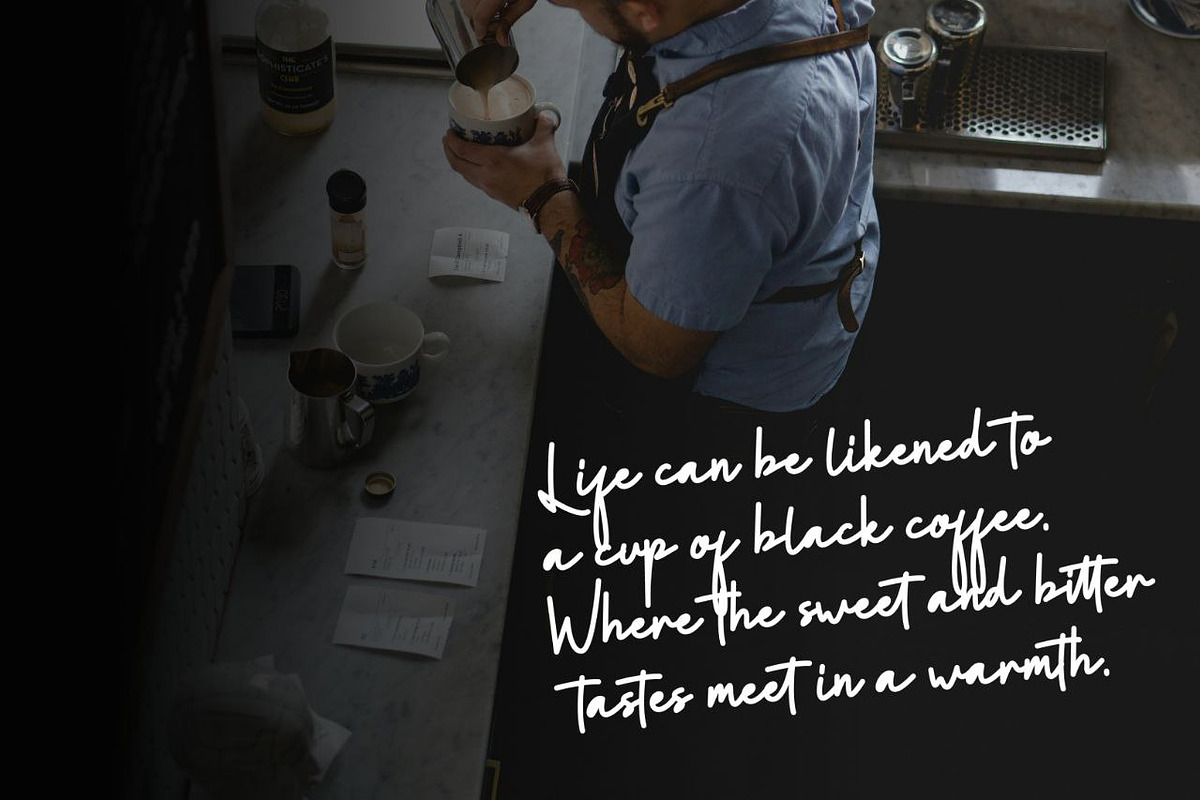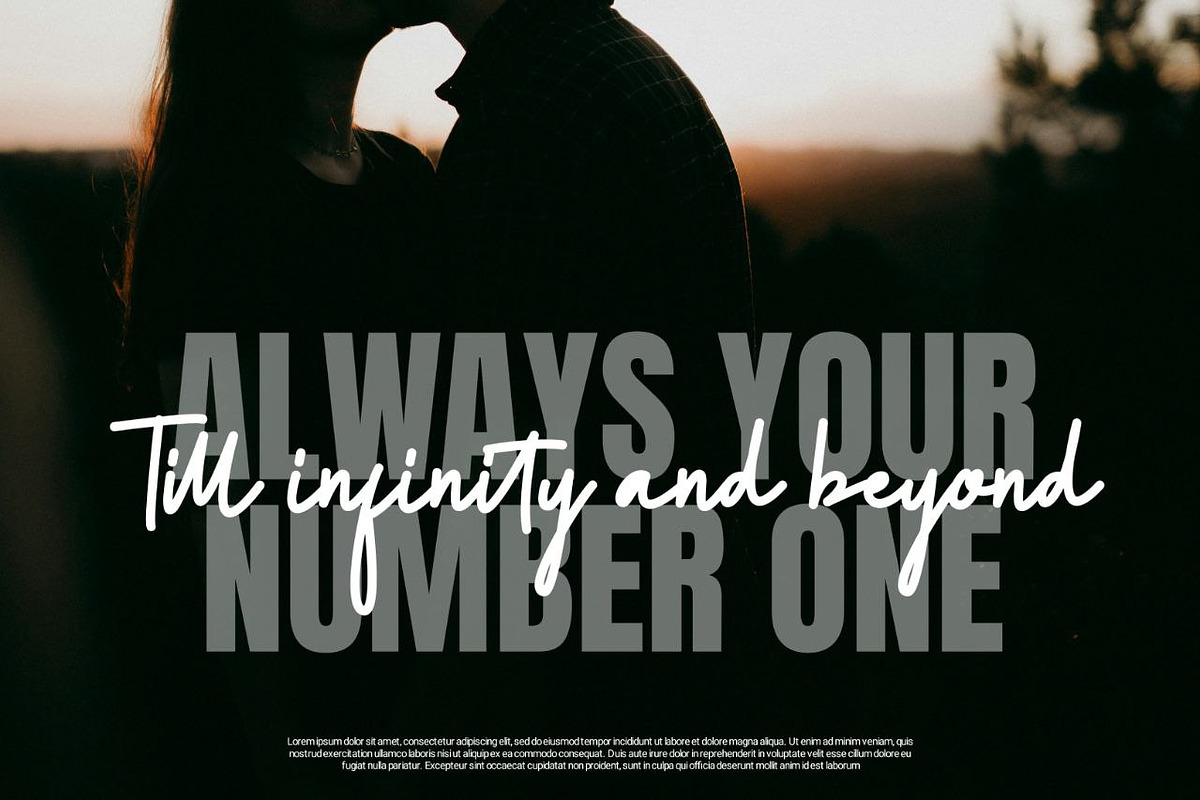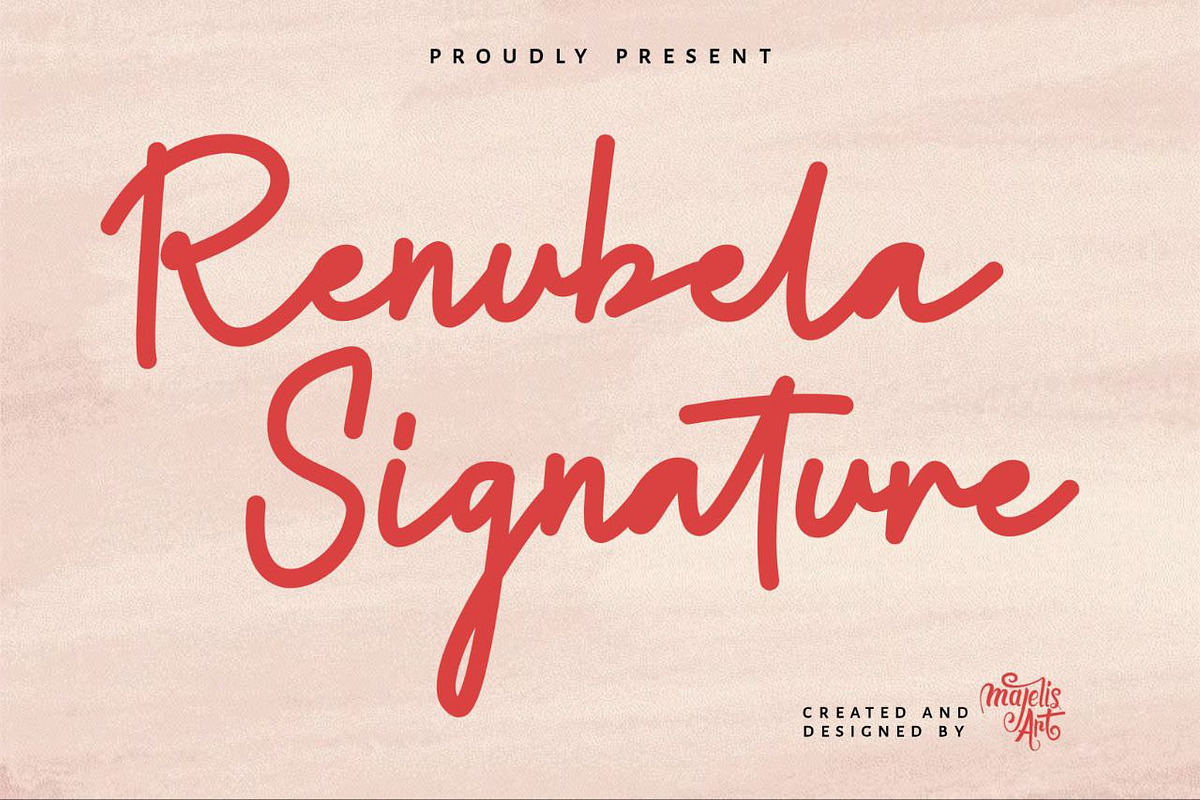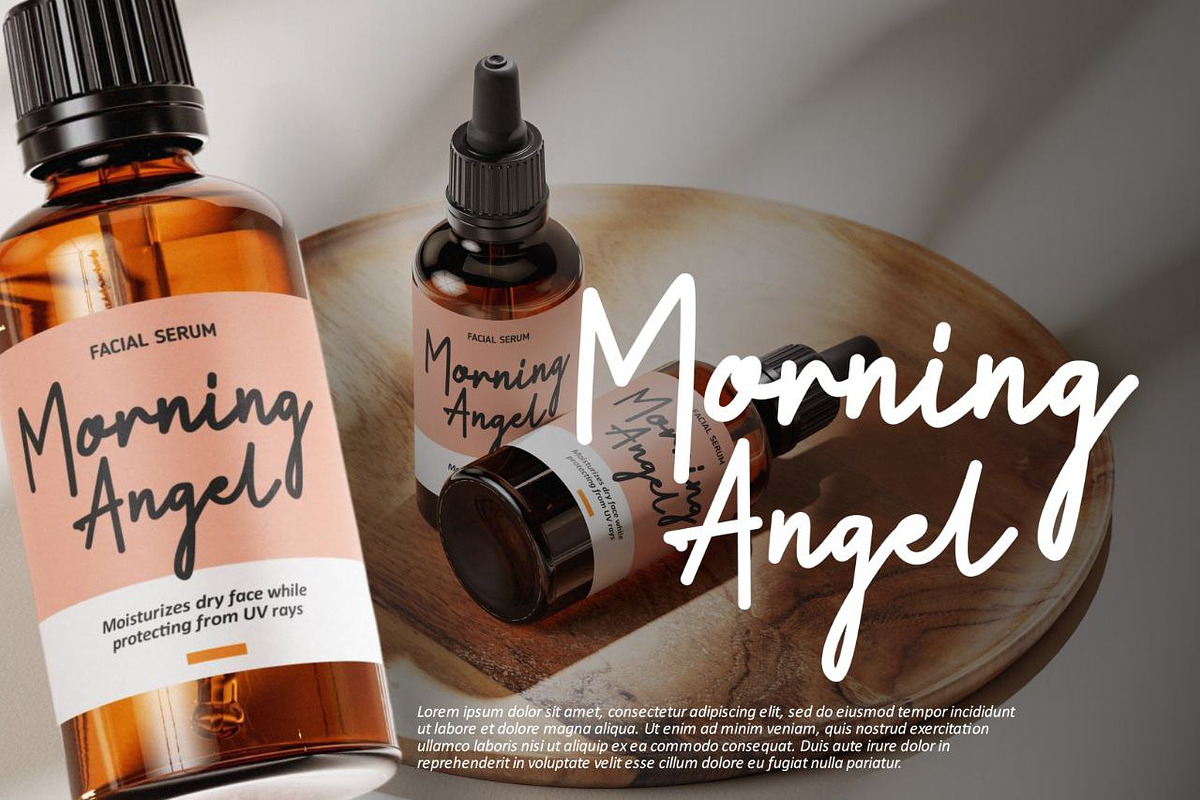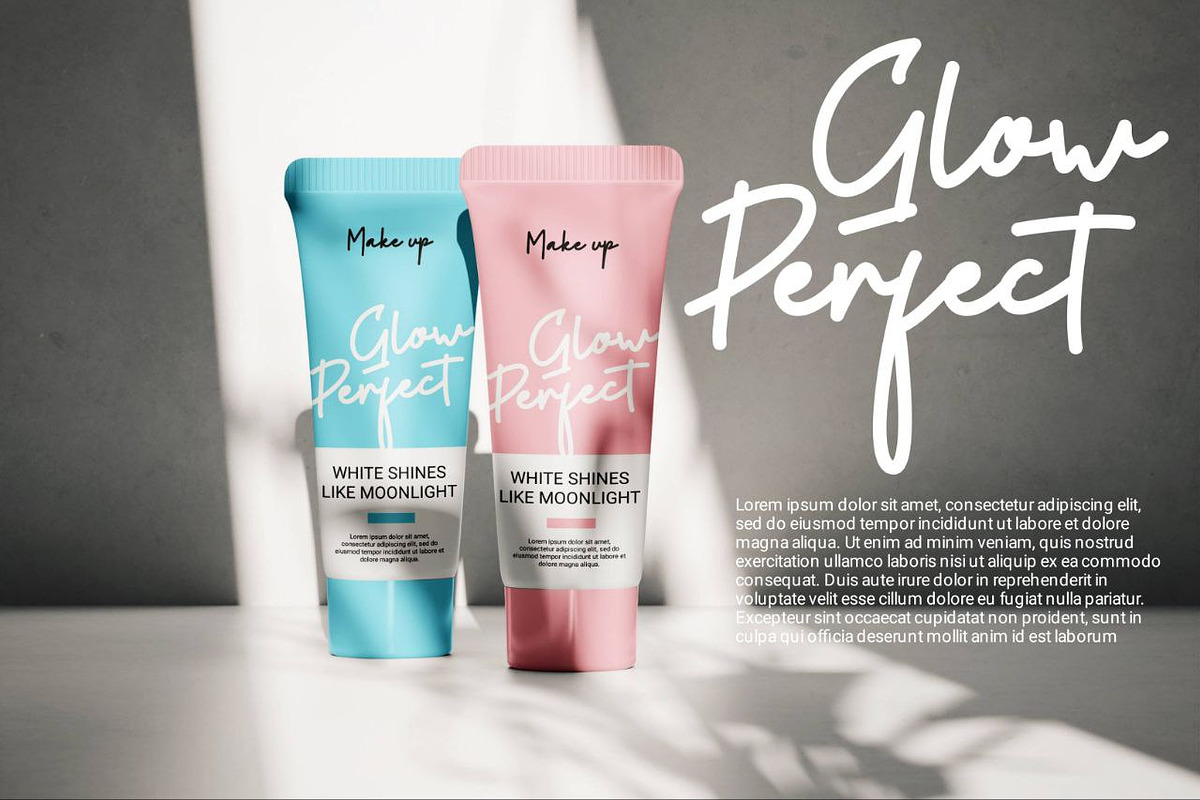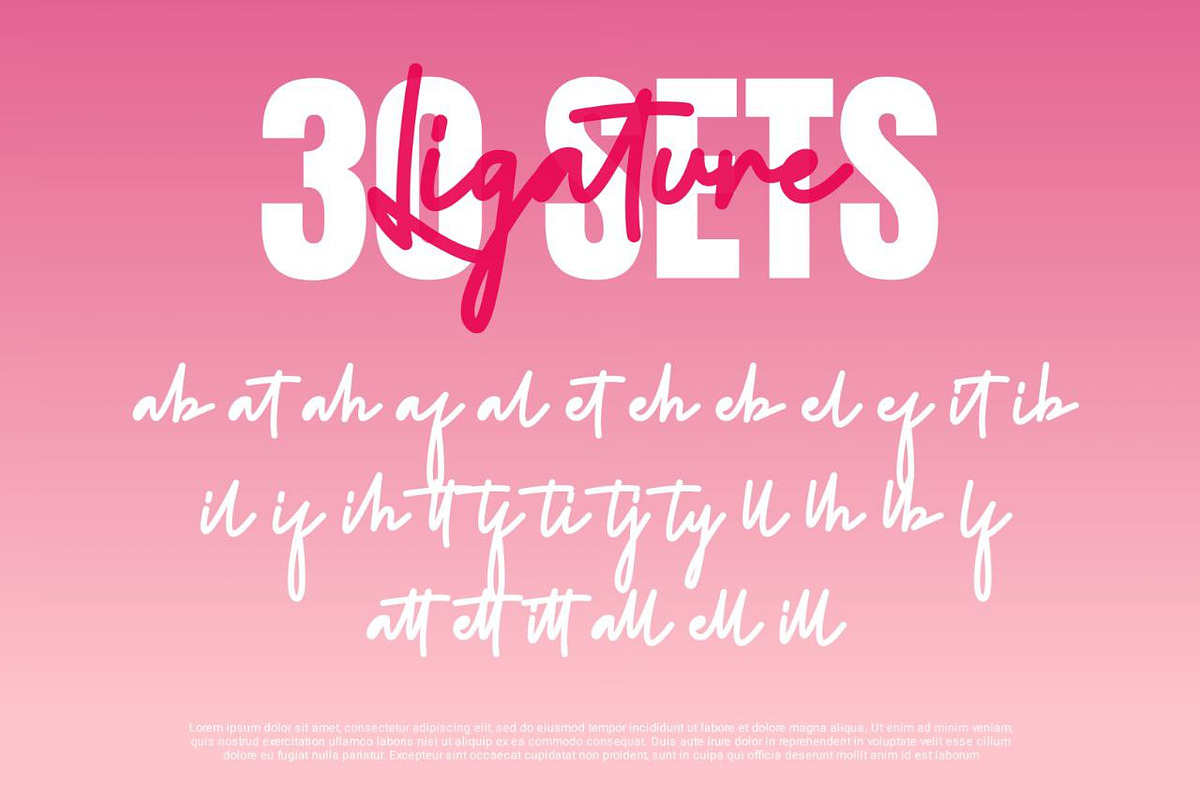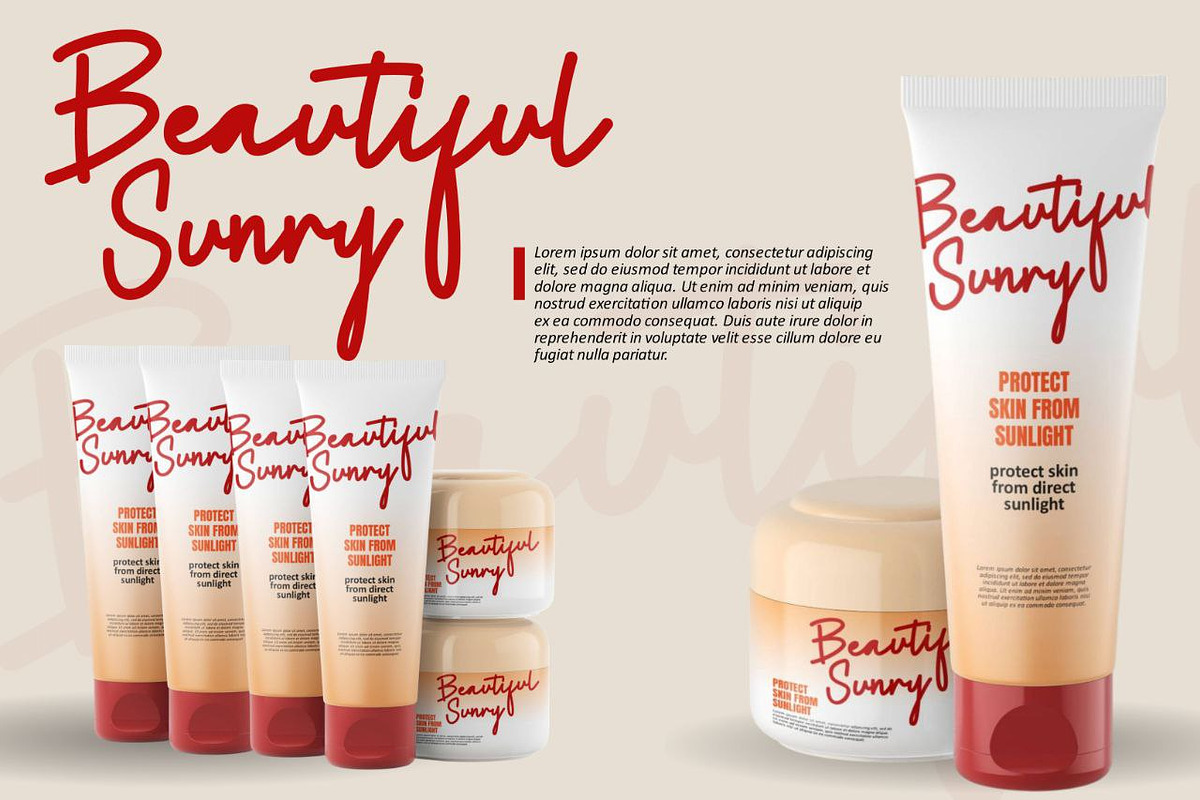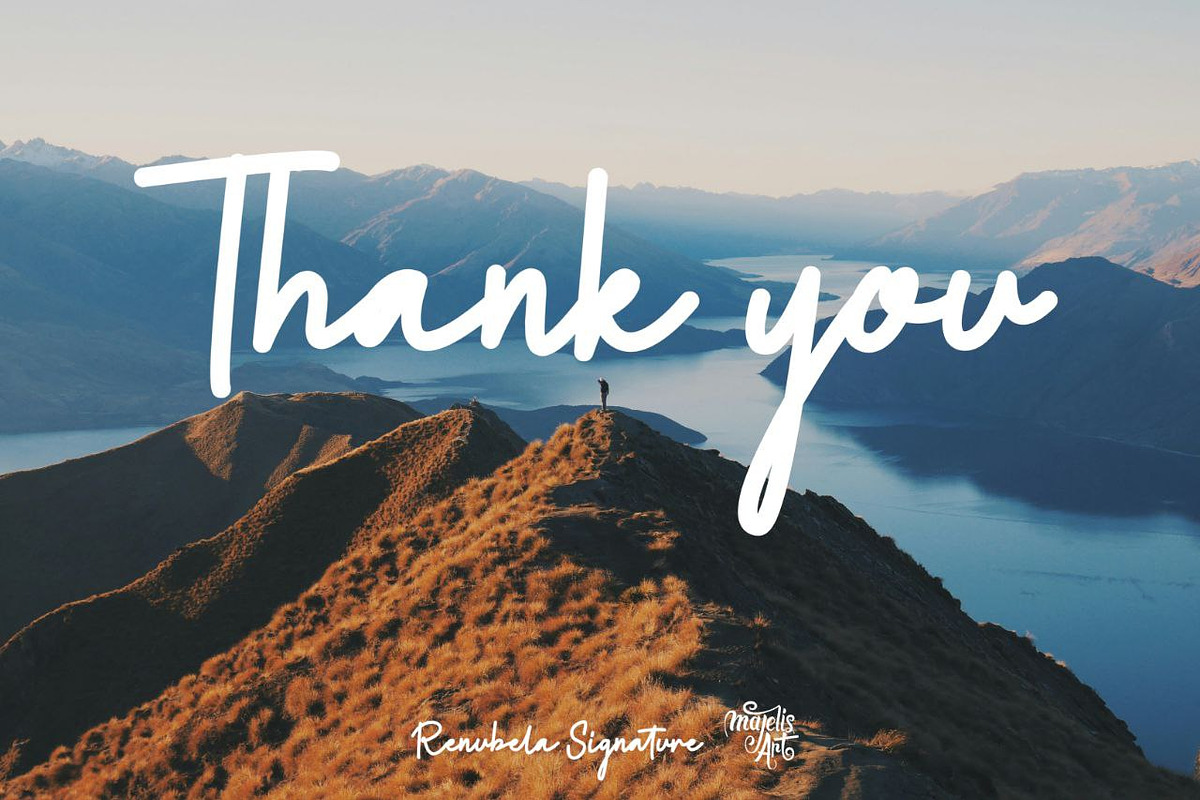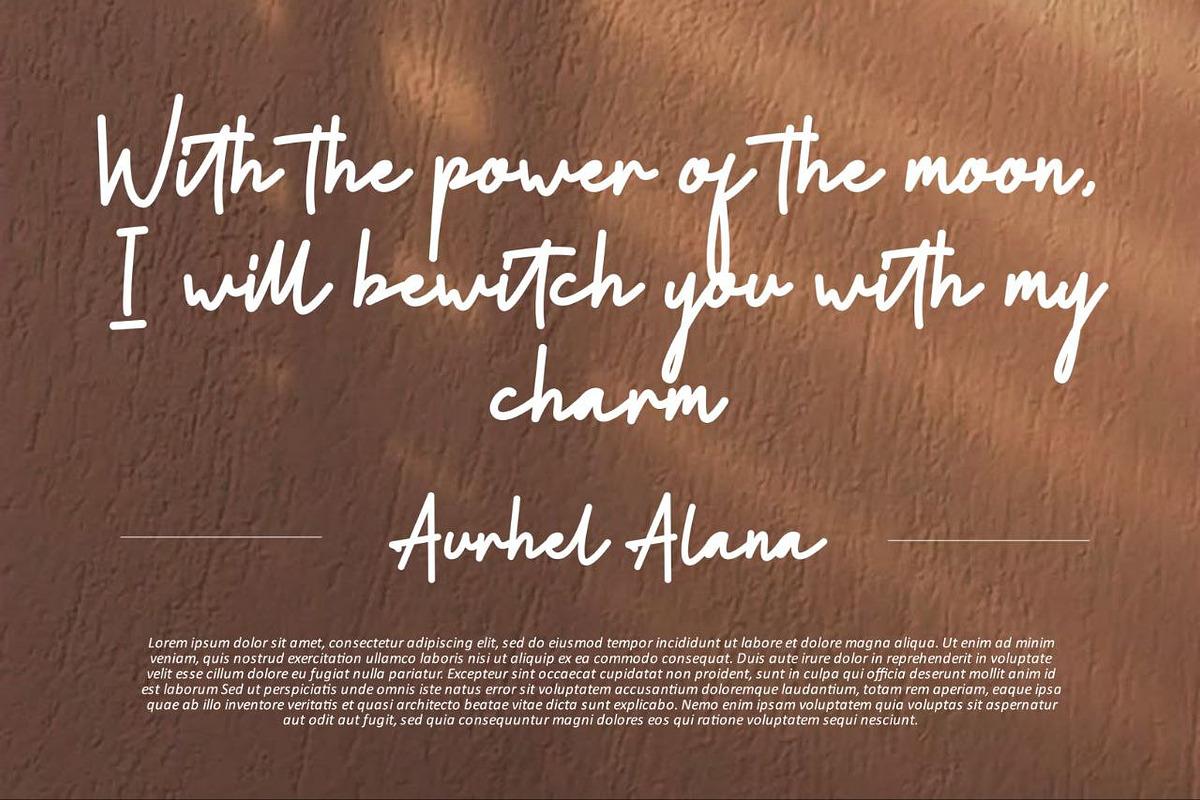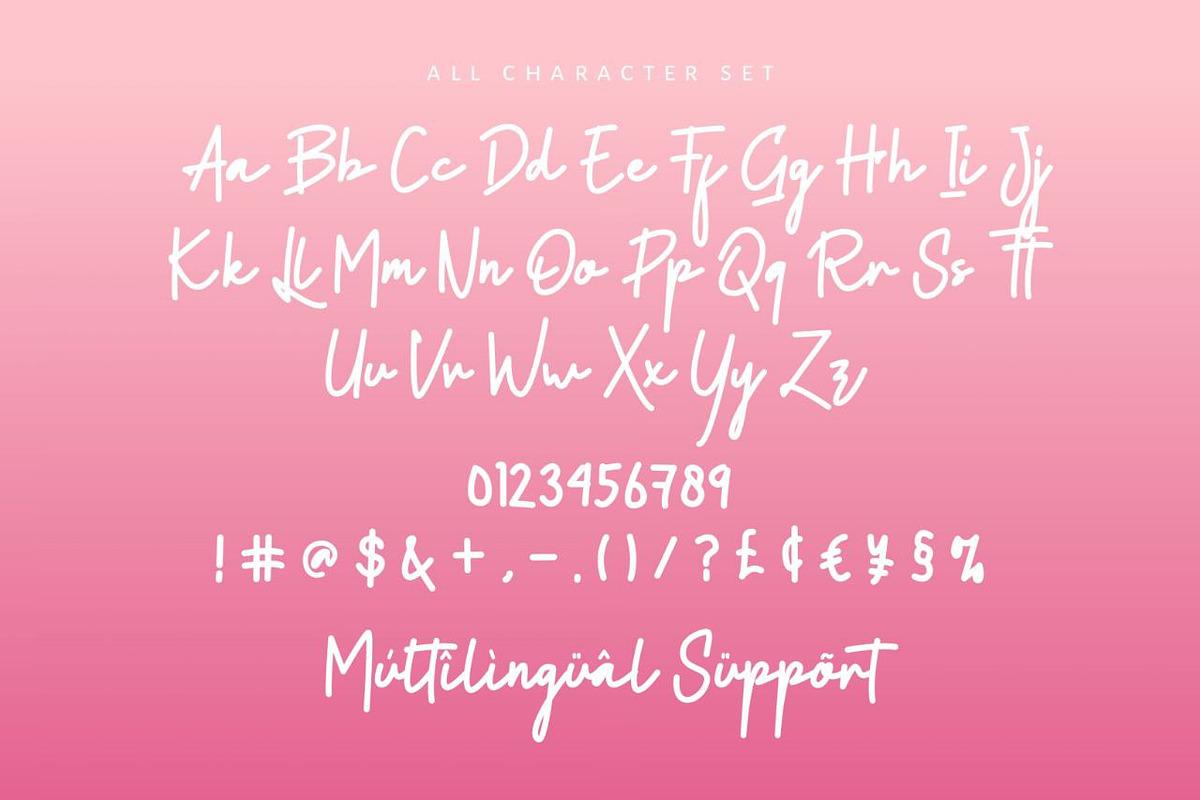
Renubela Signature
Renubela means happy even though they are far apart they still keep in touch with each other.
Renubela is a font created using a bold marker with bold curves. And given a little hand carving that resembles human writing, a signature version. This font is perfect for use on cosmetic brands, web titles, food products, commercial posters, shopfront carvings, book covers, movie titles, and more...